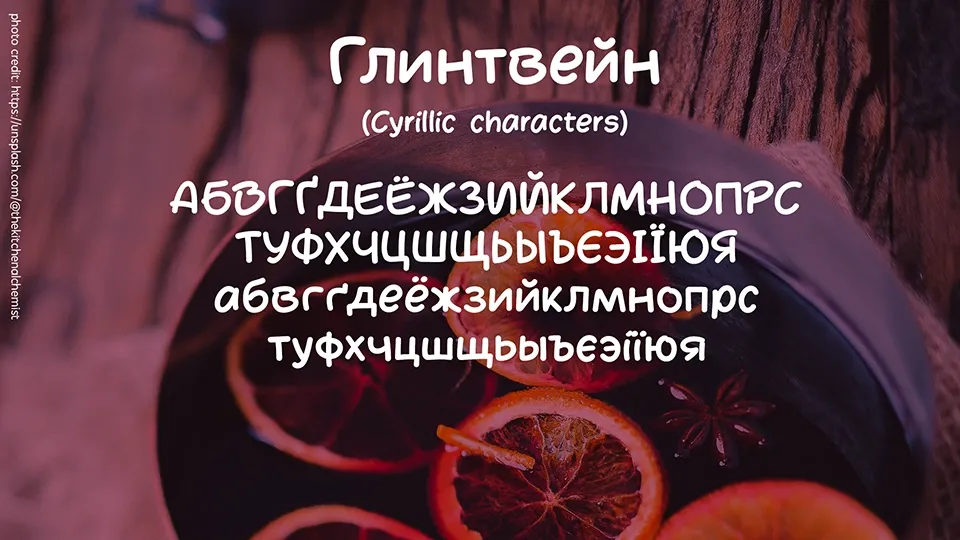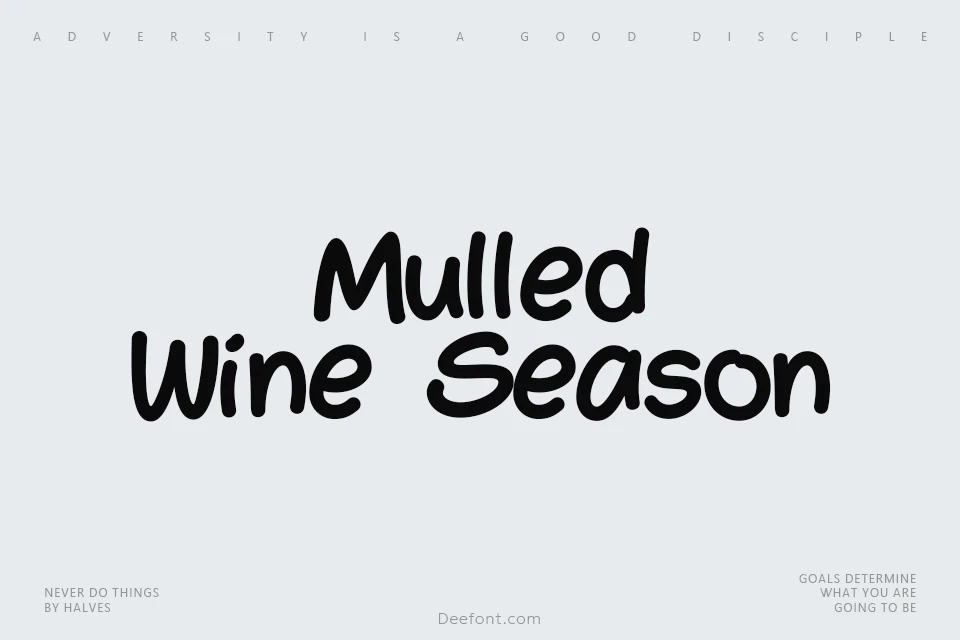
Mulled Wine Season Font
Mulled Wine Season Font is a bold, rounded font with a distinctive bouncing, playful rhythm and tight letterspacing. Created by Roland Huse Design, this versatile typeface is particularly well-suited for children’s books and cartoon-themed projects. The font features comprehensive character support, including Western and Eastern European Latin accents, Vietnamese characters, Rovas (Old Hungarian) alphabet, Cyrillic script, and special characters with basic punctuation. Available in multiple formats including TTF, OTF, and webfont, Mulled Wine Season is completely free for both personal and commercial use, making it an accessible choice for designers and creators seeking a friendly, animated typographic style.